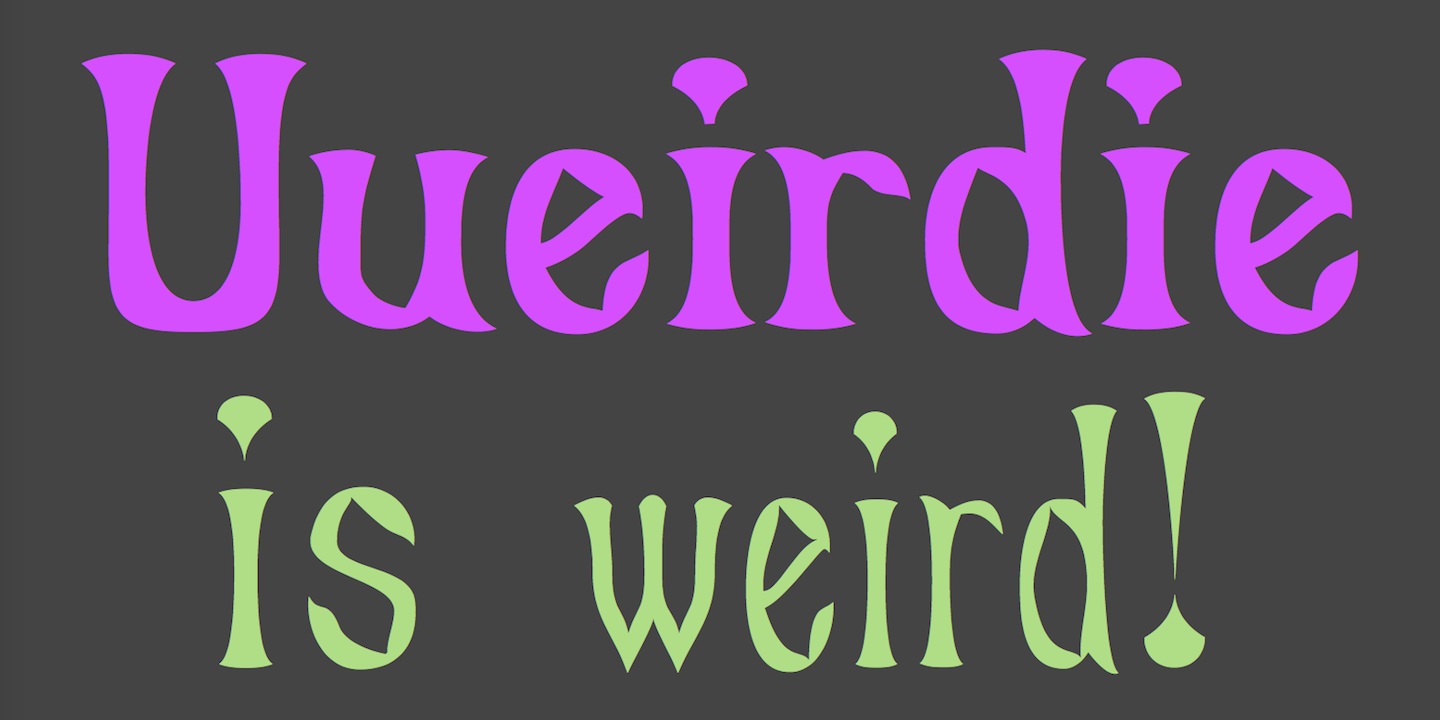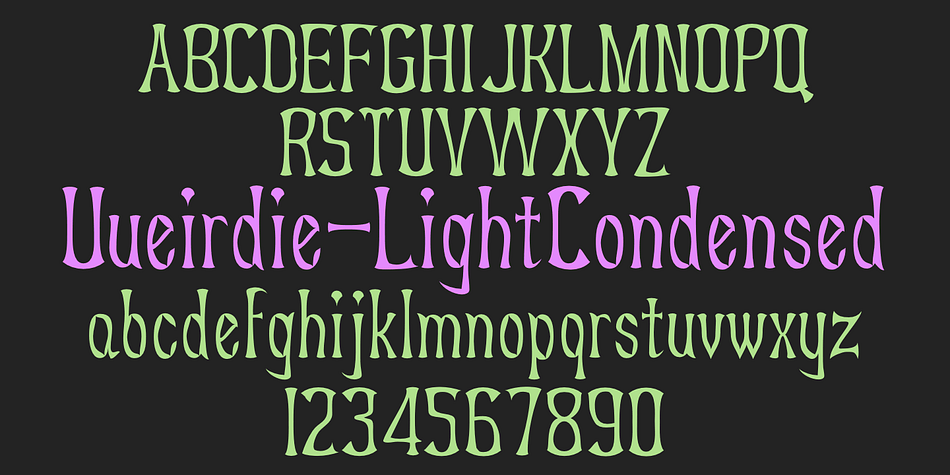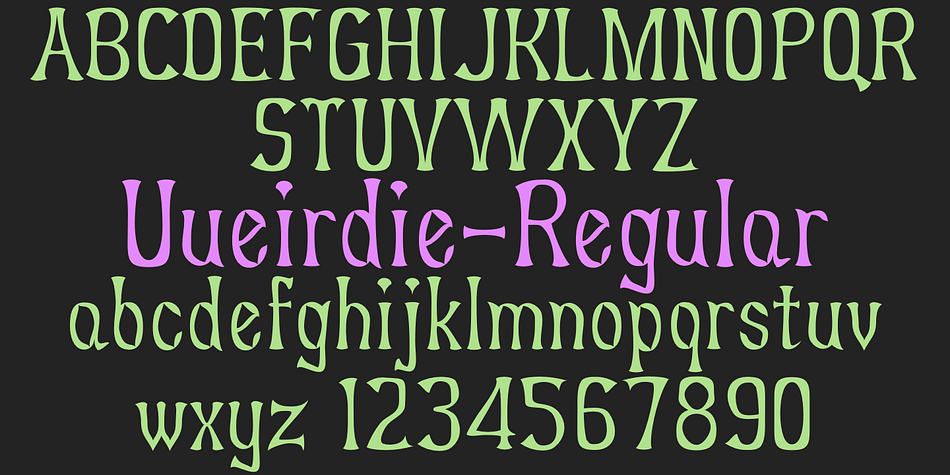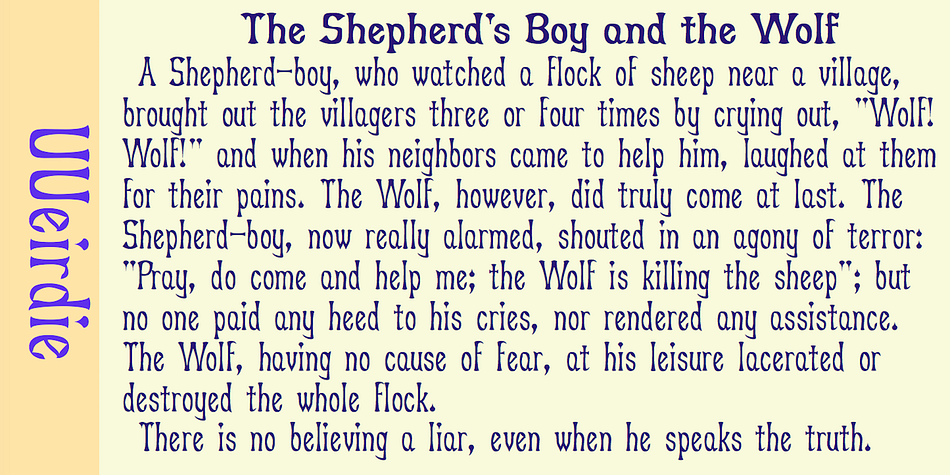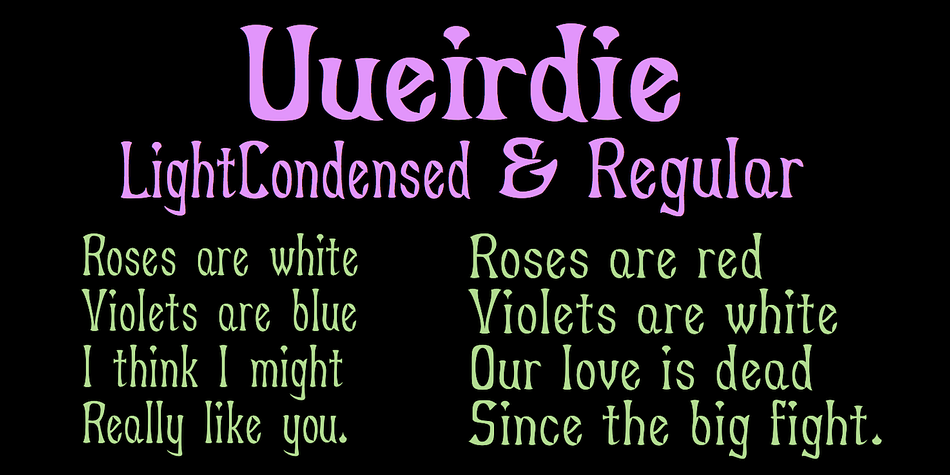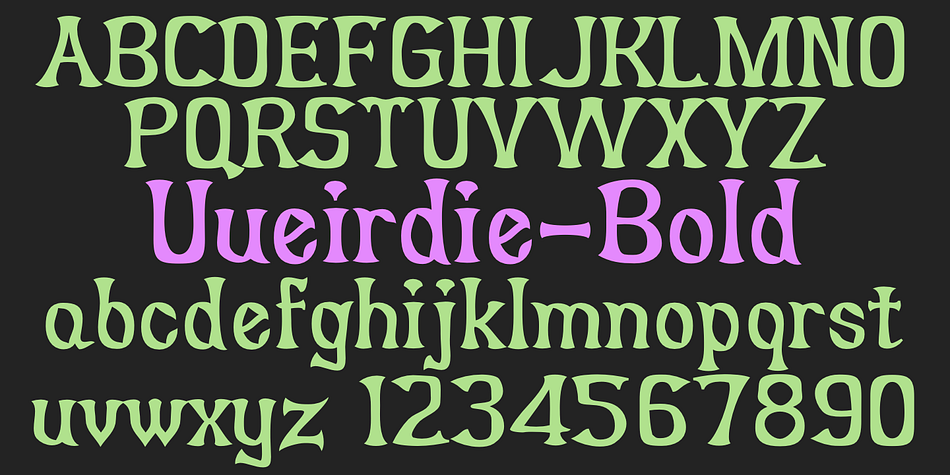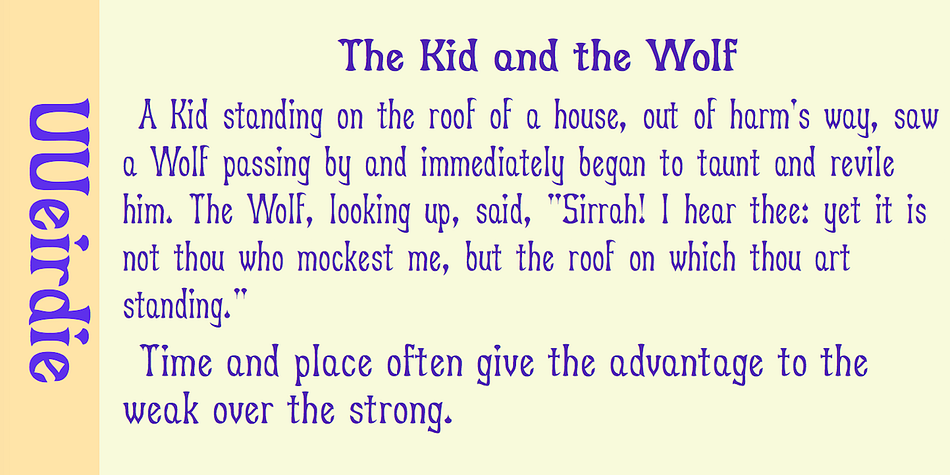
Uueirdie
Designed by Robert Schenk, Uueirdie is a hand display font family. This typeface has four styles and was published by Ingrimayne Type.
UUeirdie is weird. The Condensed-Light style was derived from the star-serifed font Asterx by replacing the star serifs with a rounded flare serif. Widening that style resulted in UUeirdie-Regular and the bold was then constructed to complement it. The warped version was a result of play with a font distortion program. Although the glyphs have sharp corners, they do not have straight lines. The UUeirdie faces are rough, irregular, and maybe a bit creepy.